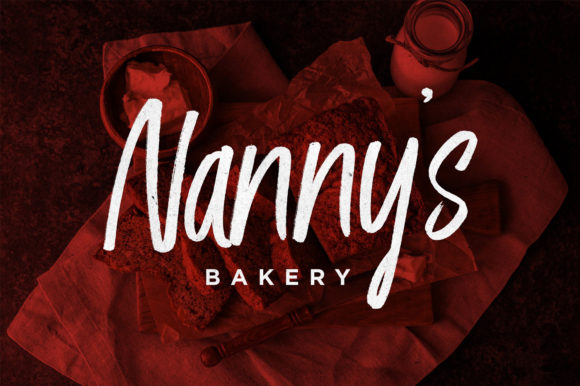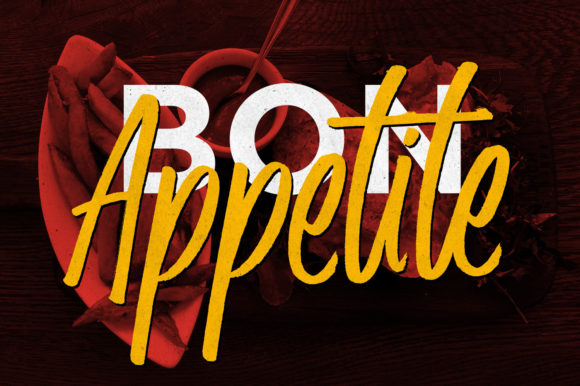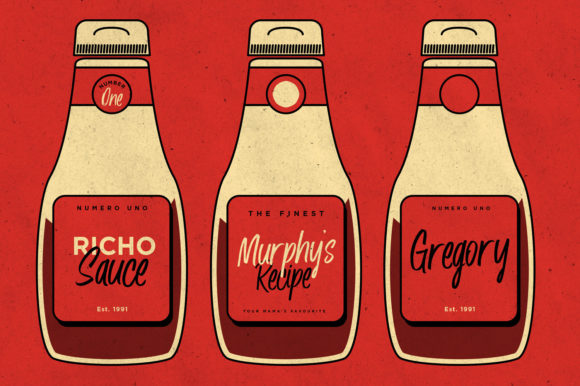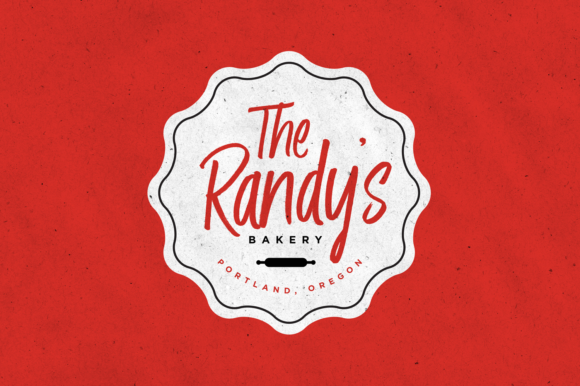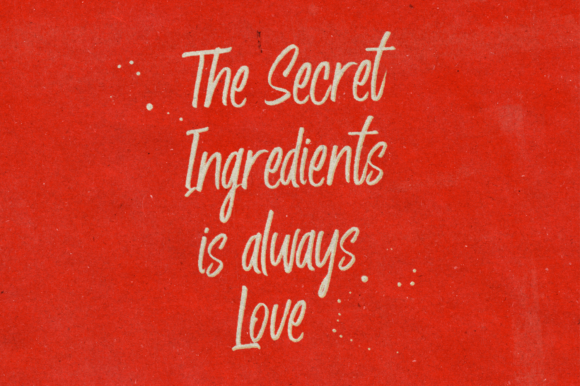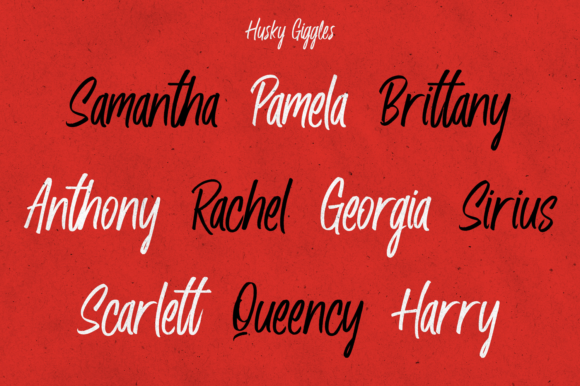
Introduction to Husky’s Giggle Font
Remember that moment when you stumbled upon the perfect design element and your creative project suddenly came to life? For designers, finding that special something can be the difference between an average and an exceptional outcome. For us, it’s the discovery of the Husky’s Giggle Font that has us giggling with excitement.
This elegant and dainty handwritten font is a treasure trove of creative possibilities. Its sweet and delicate swashes will add a touch of whimsy to any project, from letterheads and titles to stationery. With its high-quality design and transparent background, Husky’s Giggle Font is the perfect addition to any designer’s toolkit.
Whether you’re working on a free download or a paid project, Husky’s Giggle Font is a valuable resource that will elevate your design to the next level. Its versatility and charm make it an ideal choice for a wide range of creative projects, and we can’t wait to see how you’ll use it to bring your designs to life.
Key Features of Husky’s Giggle Font
- Its playful, cursive design makes it perfect for adding a touch of whimsy to your creative project.
- Husky’s Giggle Font is a versatile design element that can be used in a variety of settings, from children’s books to greeting cards.
Honest Review: Husky’s Giggle Font
I recently stumbled upon Husky’s Giggle Font while searching for a unique design resource for a creative project. I was immediately drawn to its playful and whimsical feel, making it perfect for a children’s book cover or a social media campaign.
Here are some of the things that work well with Husky’s Giggle Font:
- ⚠️ The font is quite playful and may not be suitable for all types of projects (e.g. corporate or serious designs)
Overall, I’m impressed with Husky’s Giggle Font and would definitely recommend it for creative projects that require a fun and lighthearted touch. Just be mindful of its limitations and use it accordingly.
Getting the Most Out of Husky’s Giggle Font
For the best results, use Husky’s Giggle Font in conjunction with other creative elements, such as graphics, images, and colors. Experiment with different font sizes, styles, and colors to add visual interest to your design.
Husky’s Giggle Font is perfect for a variety of creative projects, including social media graphics, blog posts, and presentations. You can also use it to add a playful touch to your website, marketing materials, or print ads.